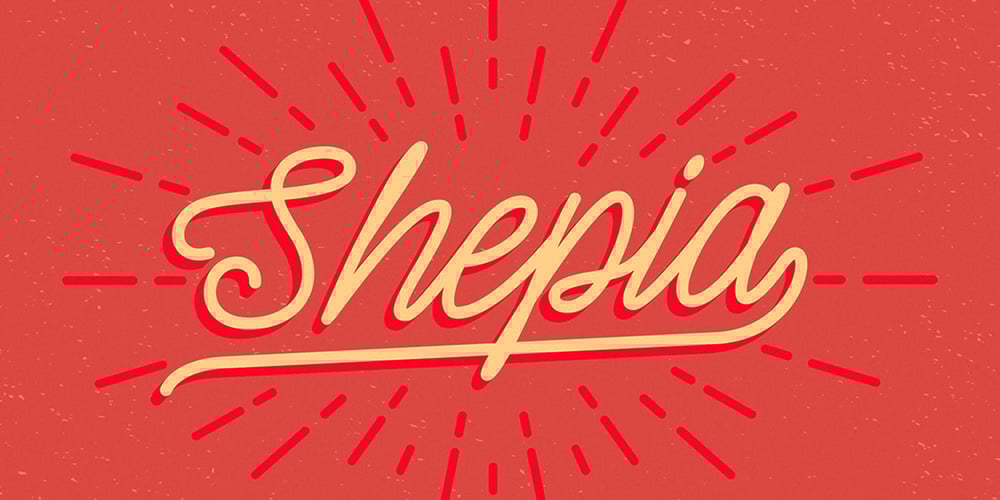
Shepia Script Font Family was designed by Seniors Studio and published by Seniors Studio. Shepia Script contains 1 styles and family package options. Shepia script is a monoline cursive handwriting. It is a classic and fun vintage script. With almost 390 glyphs and 188 alternative characters, it contains a plethora of opentype features (including stylistic alternates, ornaments, swashes and more). Can be used for various purposes such as logos, wedding invitations, t-shirts, letterheads, signage, labels, news, posters, badges etc. To enable the OpenType Stylistic alternates, you need a program that supports OpenType features such as Adobe Illustrator CS, Adobe Indesign & CorelDraw X6-X7.